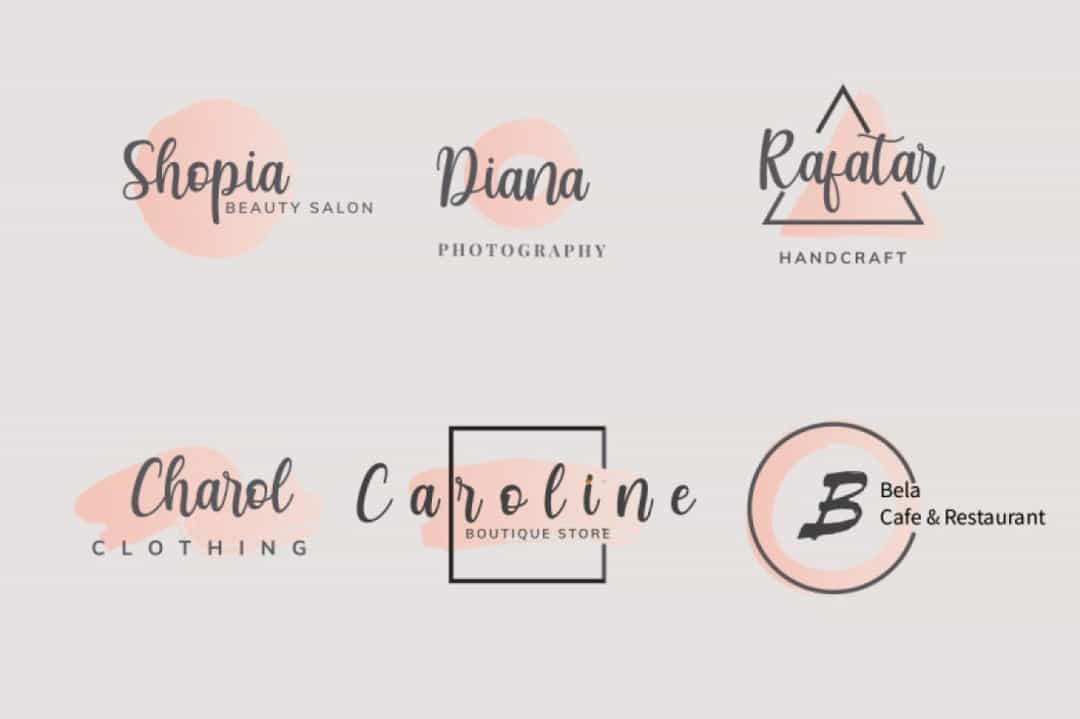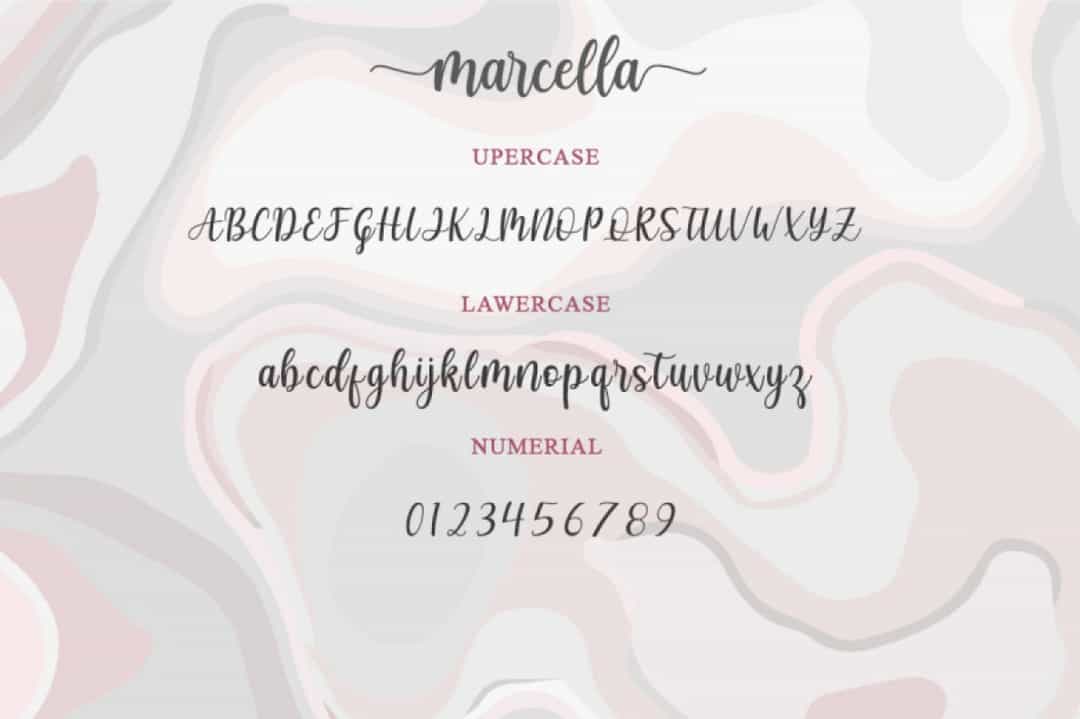
Marcella is a script font type face, that has a rather refined look to it. Suits for wedding invitations, thank you cards, greeting cards, quotes, business cards and logos and for all designs that need handwritten effects, it is a great typeface. This Font is PUA encoded, therefore you will be able to easily access the glyphs and swashes of this particular font!